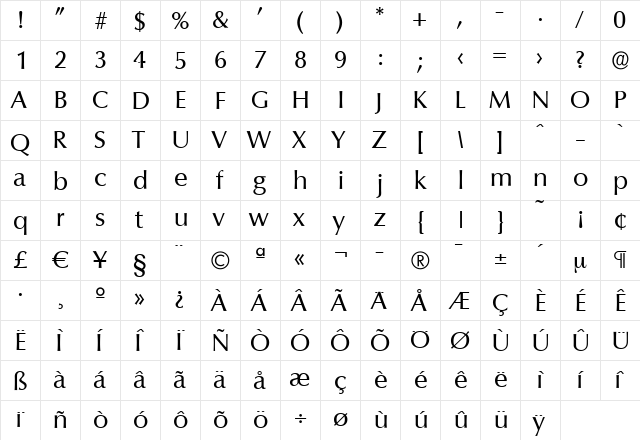
EricBecker Regular
Design Context for EricBecker Typeface
EricBecker takes a measured approach to typography — its balanced proportions and neutral character make it a reliable workhorse for both digital and print work.